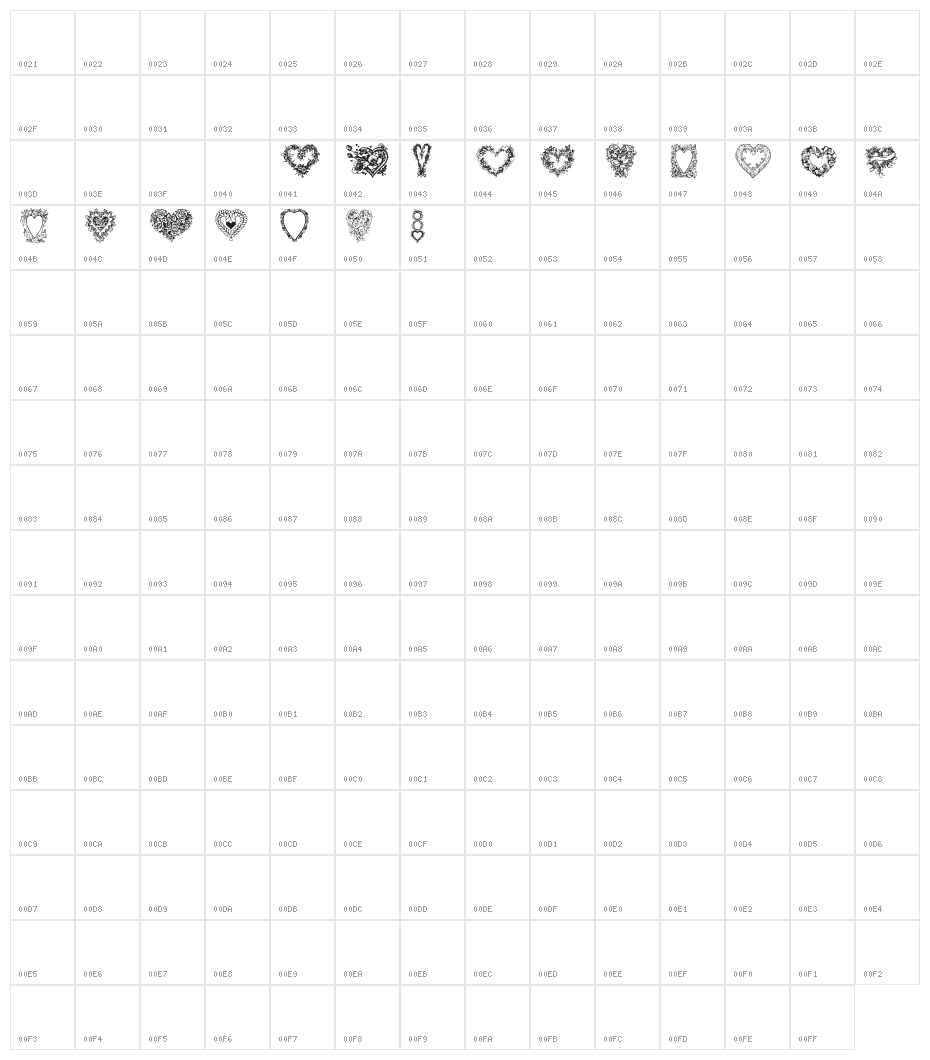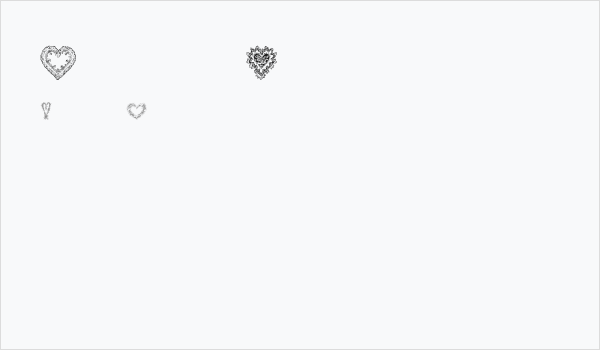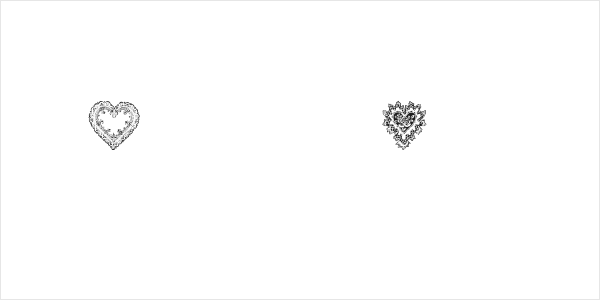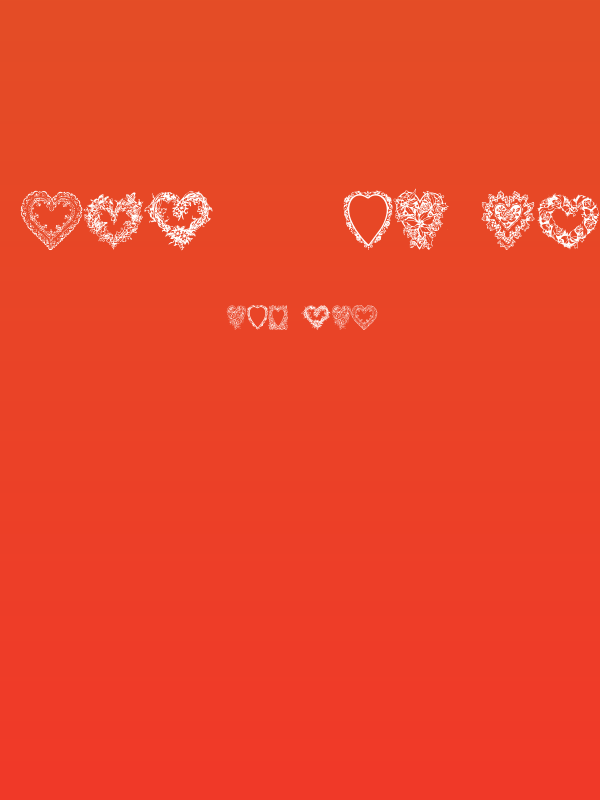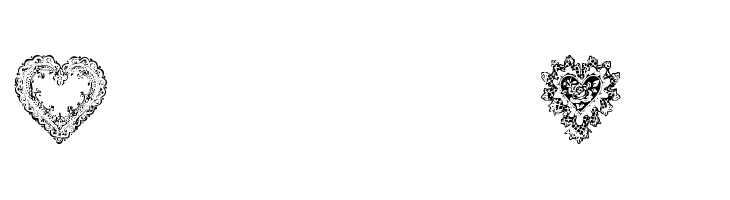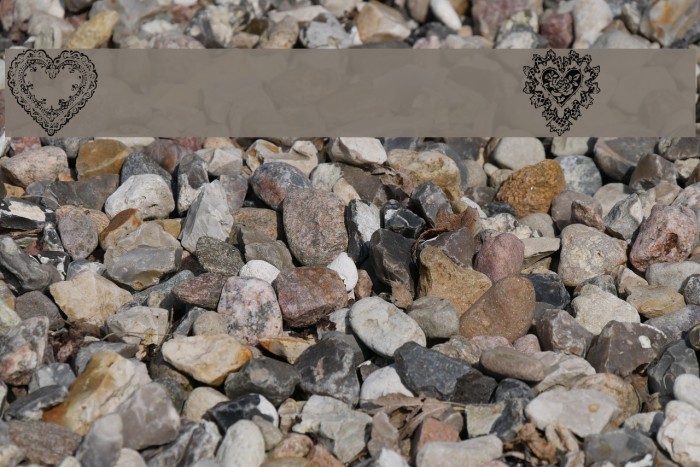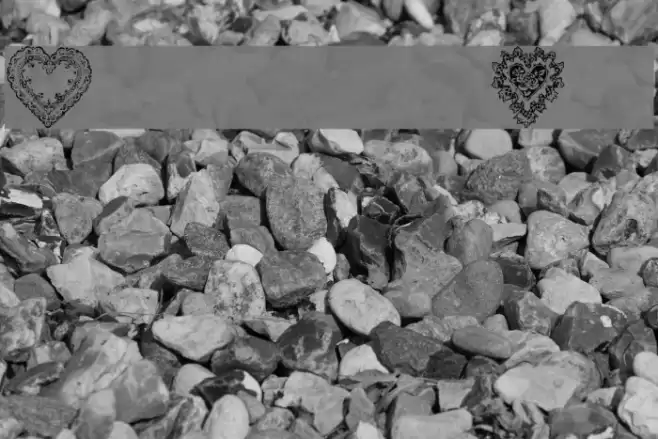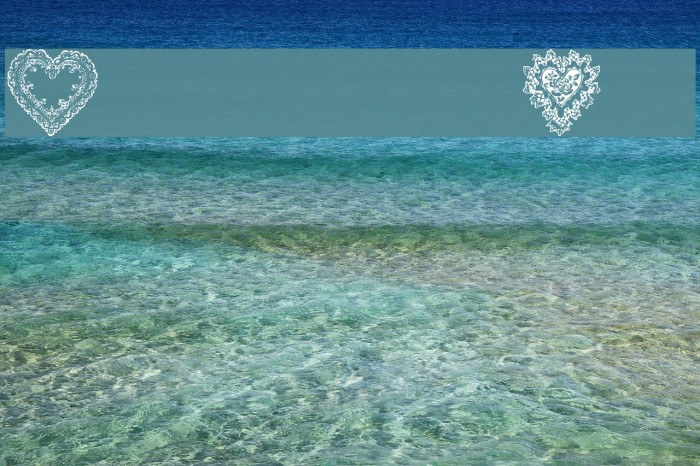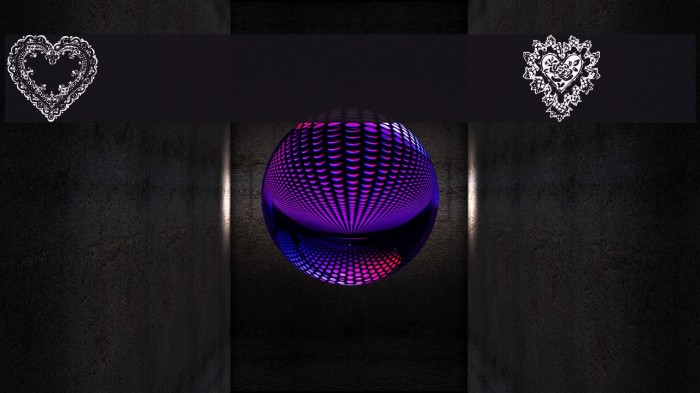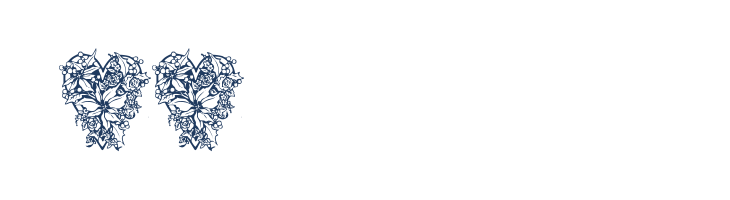
Hearts of Lime Font
A highly decorative display font composed of intricate heart-shaped frames, each glyph featuring unique ornamental patterns and flourishes, with no traditional letterforms present.
| Overall Style | Decorative, Romantic, Ornamental |
| Use Case | Logos, Headlines, Decorative elements |
| Proposed Projects | Valentine's Day cards, wedding invitations, romantic event branding, decorative borders, scrapbooking. |